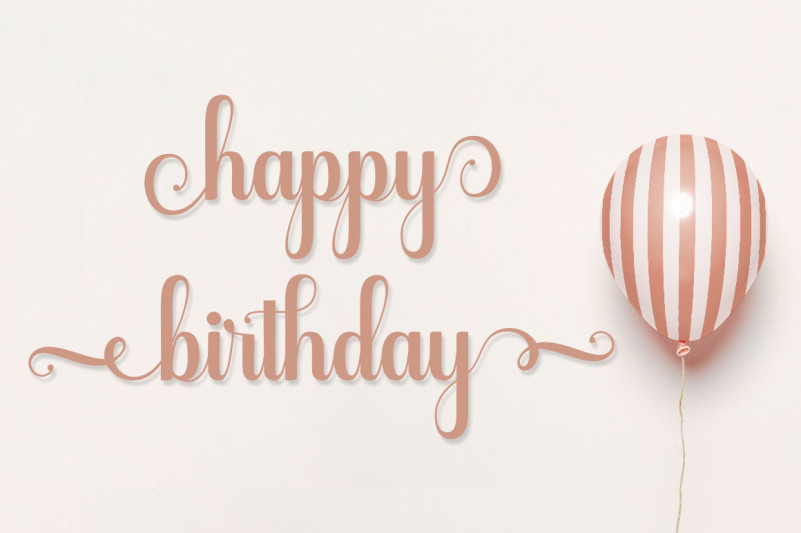
Gloritta Font
Gloritta Script Font is a calligraphy script font that comes with exquisite character changes, a kind of classic decorative copper script with a modern twist, designed with high detail for an elegant style.
Gloritta is attractive because it is subtle, clean, feminine, sensual, glamorous, simple and very easy to read, because there are many fancy letter joints. I also offer a number of decent stylistic alternatives for multiple letters. Classic styles are very suitable to be applied in various formal forms such as invitations, labels, restaurant menus, logos, fashion, make up, stationery, novels, magazines, books, greeting / wedding cards, packaging, labels or all kinds of advertising purposes. . .
Gloritta has 573+ Glyph alternative characters, including multiple language support. With OpenType features with alternative styles and elegant binding. The OpenType feature works automatically, but you can access it manually and for the best results necessary for your creativity in combining these variations of the Glyph.